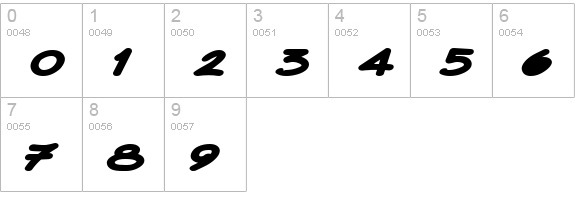
Chasm Extended Heavy BoldItalic Font Details
Chasm Extended Heavy BoldItalic is a heavy, high-impact, extended-width variant in the Chasm typeface family \xE2\x80\x94 well suited to high-impact headlines, posters, and display advertising.
Chasm Extended Heavy BoldItalic font is a powerful and dynamic typeface that exudes strength and sophistication. Its bold, italicized characters command attention and make a bold statement on any design project. This font is perfect for headlines, logos, posters, and any other project that requires a strong and impactful typeface. And the best part is, Chasm Extended Heavy BoldItalic font is completely free to download at FontsMarket.com. So you can easily add this impressive font to your collection without any cost. Don't miss out on the opportunity to enhance your designs with this striking typeface. Download Chasm Extended Heavy BoldItalic font today and take your projects to the next level!